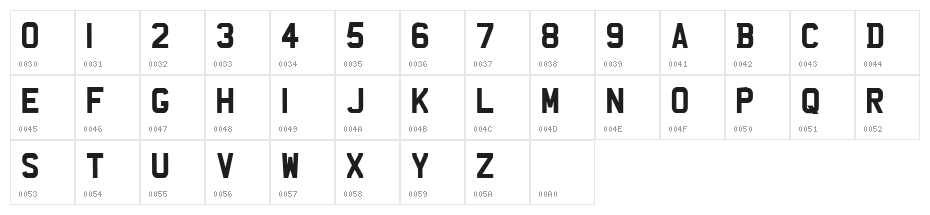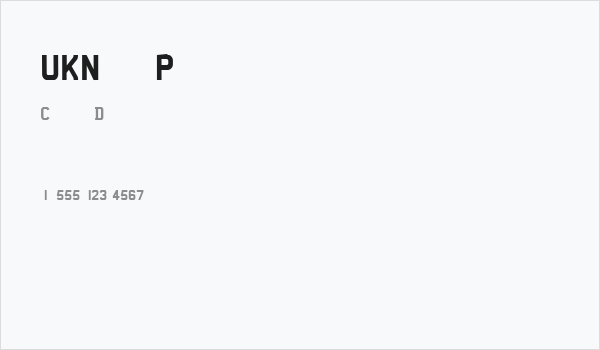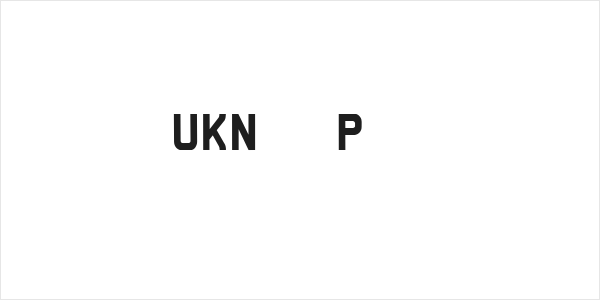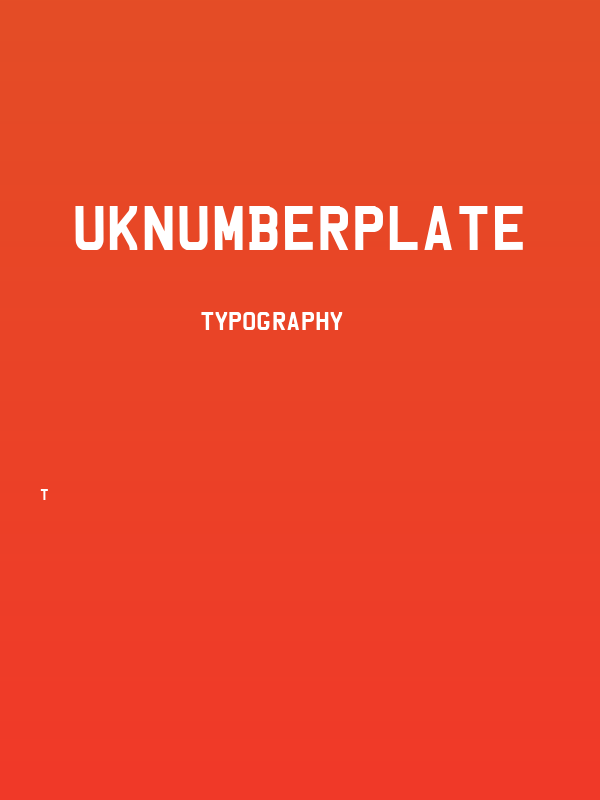
UKNumberPlate Font
UKNumberPlate Description
This font is characterized by its bold, geometric sans-serif style, commonly used for UK number plates. The letters and numbers are designed with a uniform stroke width, ensuring high legibility and clarity from a distance. The characters have a slightly condensed appearance, which allows for efficient use of space while maintaining readability. The design is straightforward and functional, with minimal decorative elements, focusing on practicality and visibility. The font's clean lines and modern aesthetic make it suitable for various applications where clarity is paramount.
| Use Case | Signage, Vehicle registration plates |
| Proposed Projects | Ideal for vehicle registration plates, signage, and any project requiring clear and legible text. |